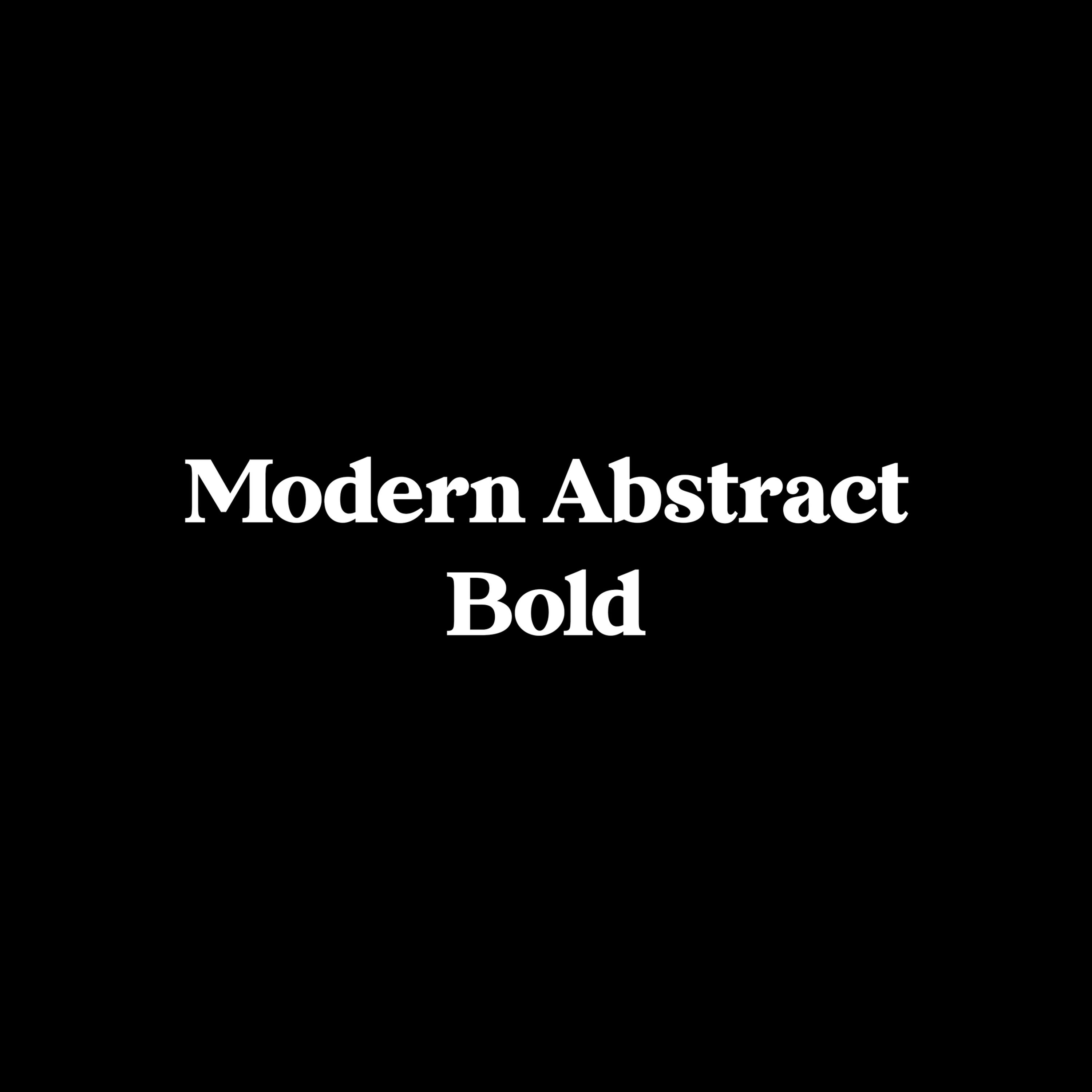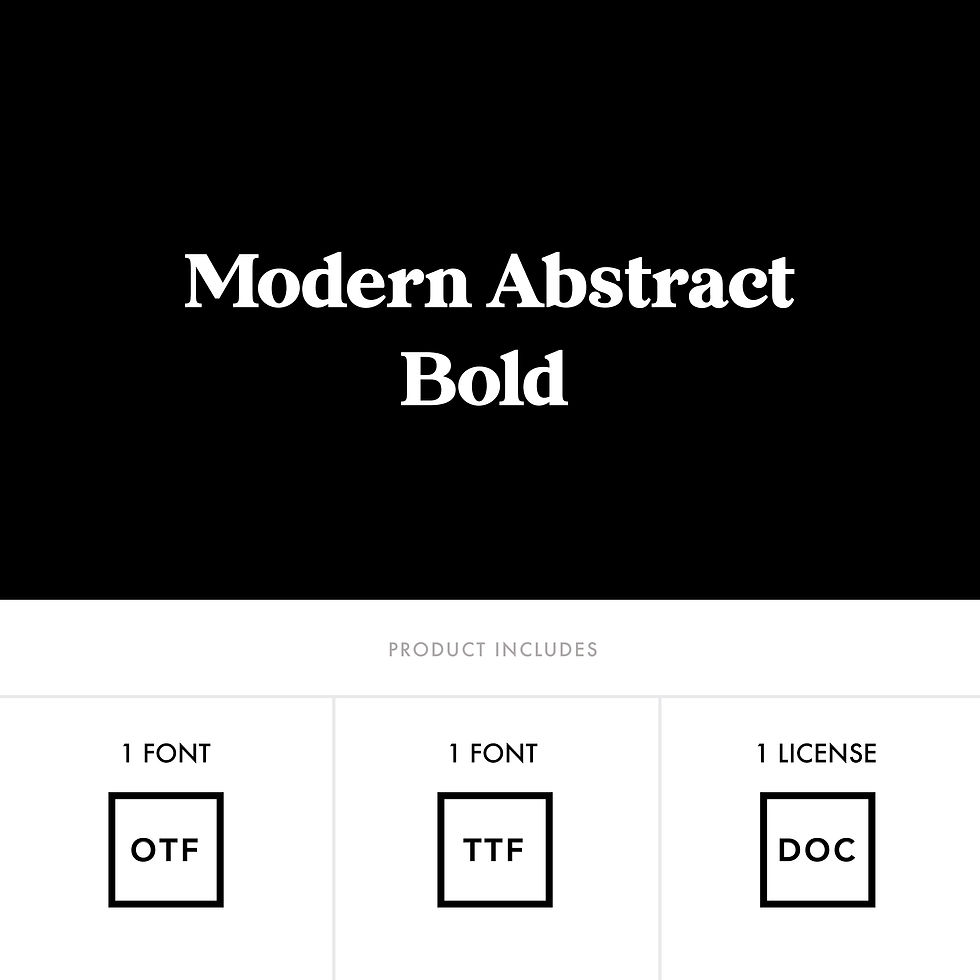
MODERN ABSTRACT BOLD FONT is a bold serif font with a retro vibe. Try using Modern Abstract for branding, headline use, film, magazines, websites, packaging, invitations and weddings.
Use Modern Abstract for packaging, magazines, layouts, web design, corporate identity and marketing.
Modern Abstract Bold Font